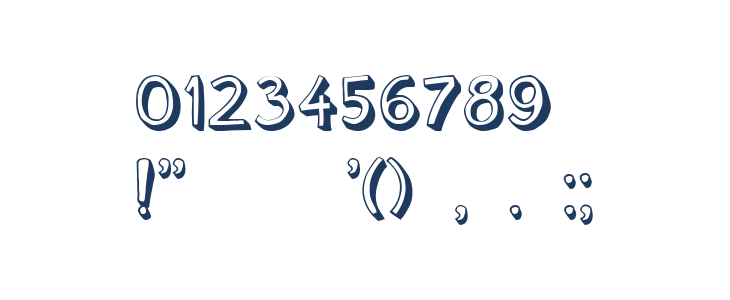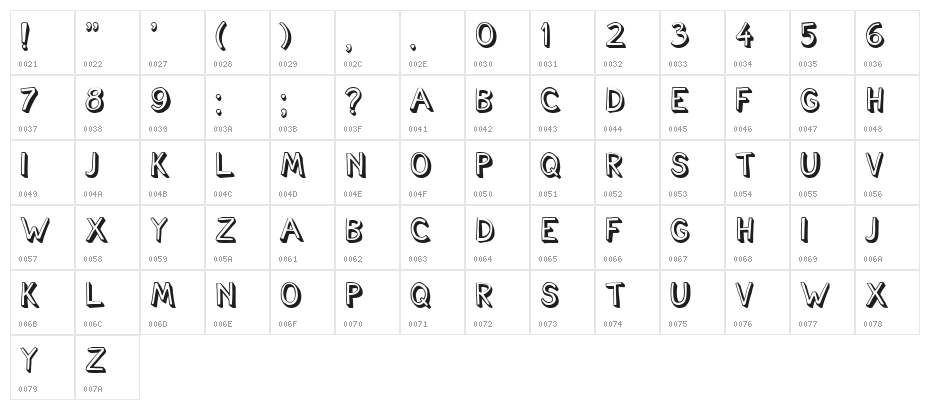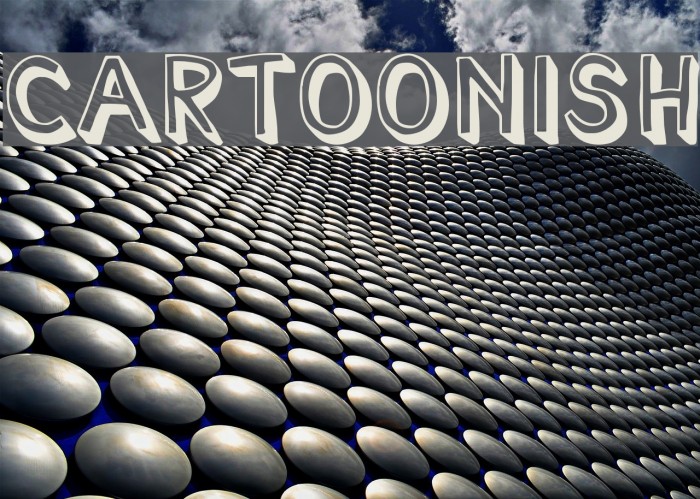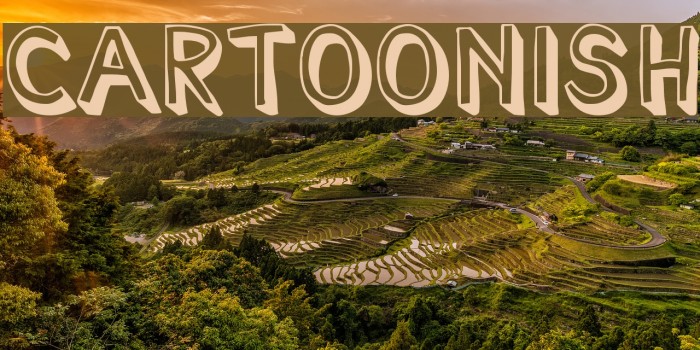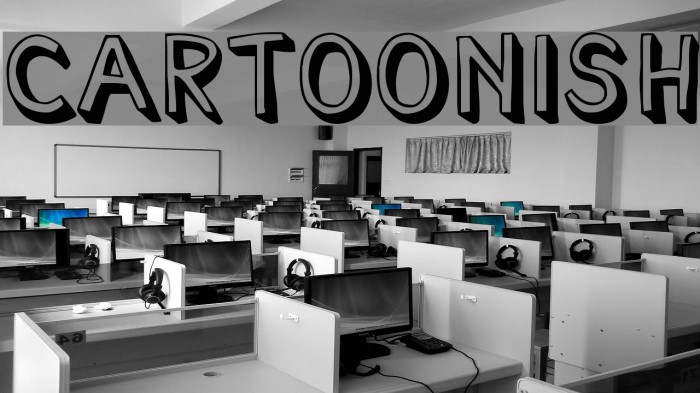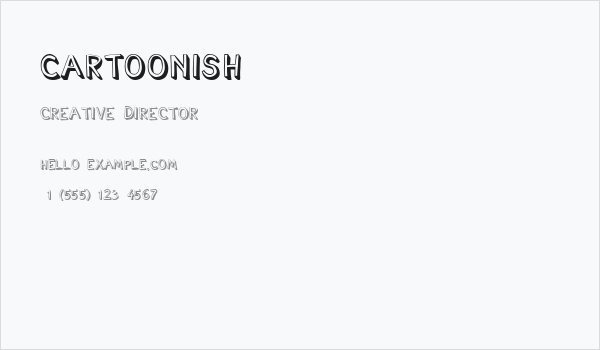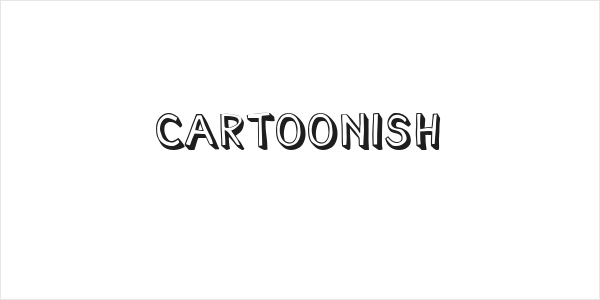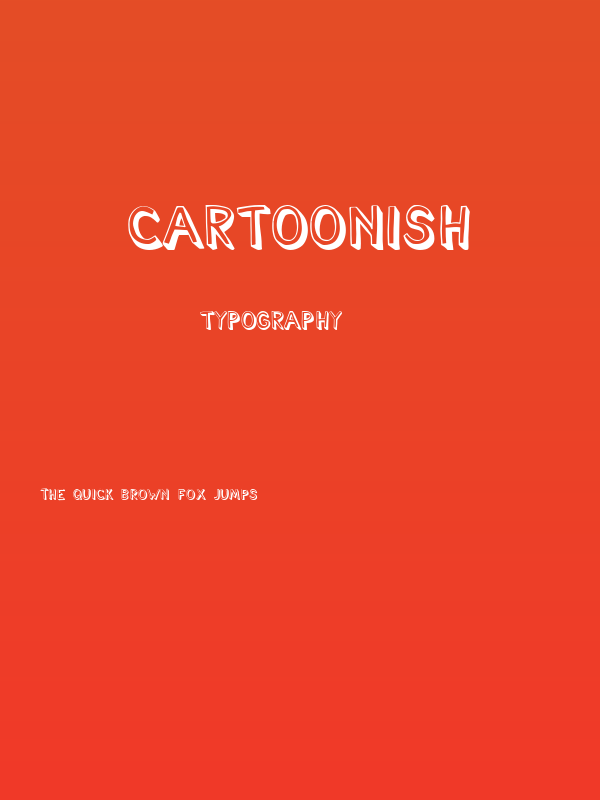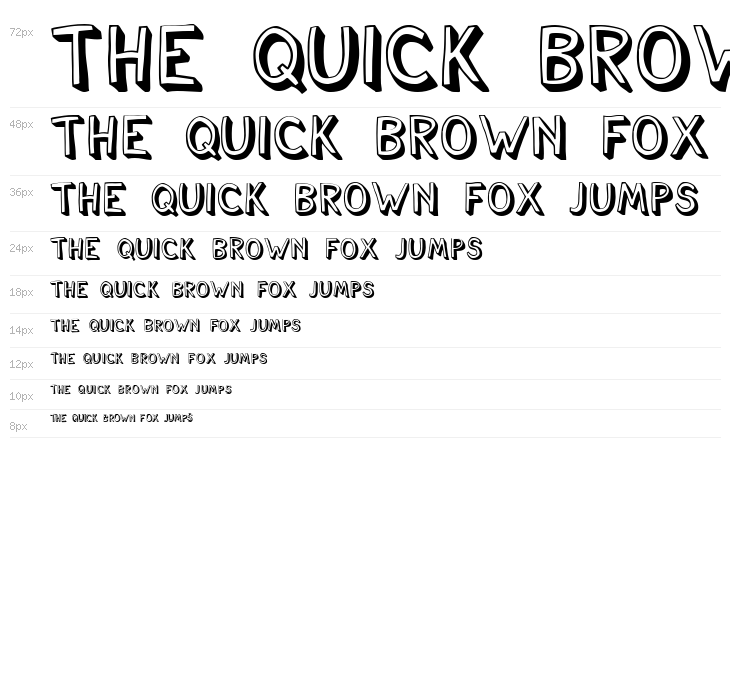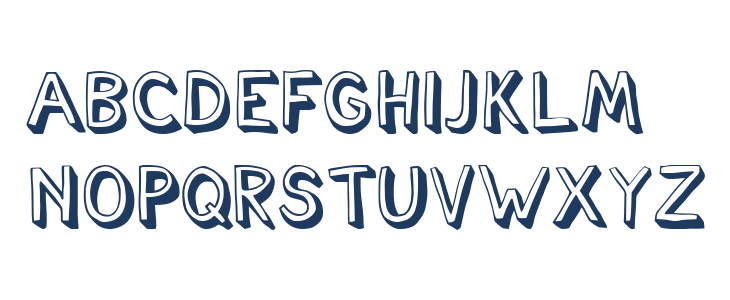
Cartoonish Font
Cartoonish Description
This playful and bold font features a cartoonish style with a strong 3D effect, giving each character a shadowed appearance. The letters are uppercase and lowercase, with numbers and a selection of punctuation marks. The strokes are thick and rounded, contributing to a friendly and approachable look. The exaggerated curves and angles add a sense of fun and whimsy, making it ideal for projects that require a lively and engaging typeface. The font's unique style is perfect for capturing attention and conveying a sense of humor or lightheartedness.
| Overall Style | Cartoonish, Playful |
| Proposed Projects | Ideal for children's books, comic strips, playful branding, and party invitations. |